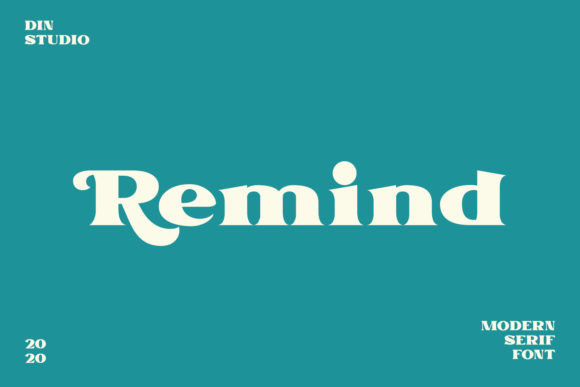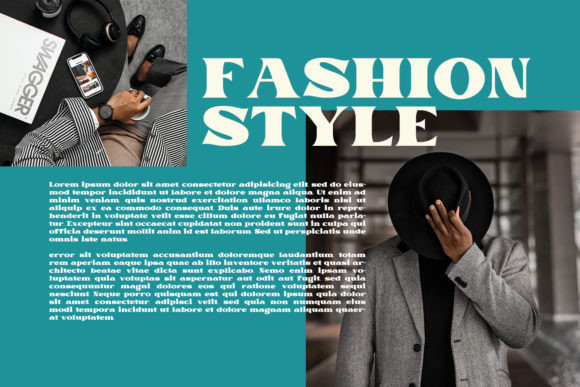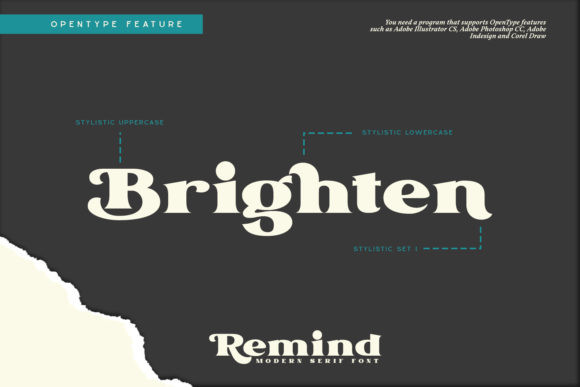
Remind Font
Remind is a chunky lettered serif font. Masterfully designed to become a true favorite, this font has the potential to bring each of your creative ideas to the highest level!